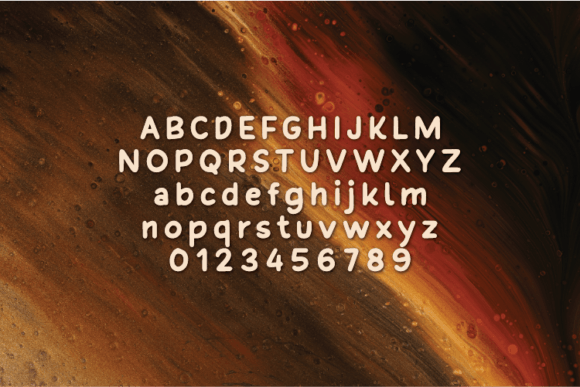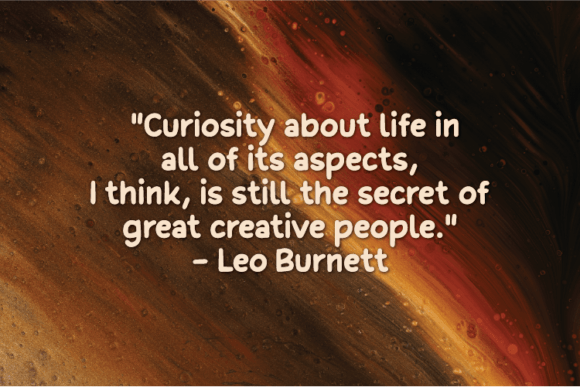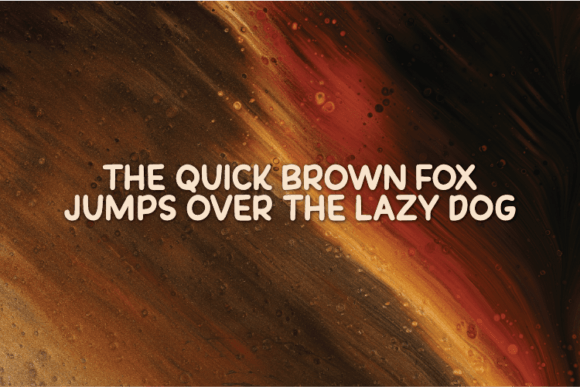
Introduction to Housewarm Font
You’re working on a creative project, and you need the perfect font to make your design pop. As you scroll through your font library, you come across a unique display font that catches your eye – Housewarm Font. Its natural, handcrafted feel instantly adds a touch of warmth and personality to your design.
Housewarm Font is a game-changer for designers looking to elevate their high-quality projects. This free download is a valuable design resource that offers a level of customization and flexibility that’s hard to find in other fonts. With its transparent background and subtle nuances, Housewarm Font is perfect for quotes, notes, tees, and any product design that needs a little extra something.
Key Features of Housewarm Font
- High-quality design: Housewarm Font is a premium font designed for creative projects, offering a unique and stylish look.
- Transparent background: The font features a transparent background, allowing for easy layering and customization in design projects.
- High-resolution design: The font is designed at 300 DPI, making it suitable for high-resolution printing and digital displays.
- Unique characteristics: Housewarm Font features a distinctive, hand-drawn style with intricate details and subtle texture, adding a touch of elegance to any design project.
- Size and resolution: The font is available in a range of sizes, from 12 to 72 points, and can be scaled up or down without losing its clarity or quality.
Honest Review: Housewarm Font
I recently stumbled upon the Housewarm Font while searching for a free download to enhance my creative project. I was impressed by the high quality of the font, which immediately caught my attention. The Housewarm Font is a fantastic design resource for anyone looking to add a unique touch to their work.
Here are some things that work well with the Housewarm Font:
- Unique and modern design that stands out from the crowd
- High quality vectors that can be scaled up or down without losing clarity
- Transparent background, making it easy to layer with other design elements
- Perfect for use in logos, branding, and other creative projects
However, I did notice a few limitations with the Housewarm Font:
- May not be suitable for use in body text due to its modern and stylized design
Overall, I’m impressed with the Housewarm Font and would recommend it to anyone looking for a high-quality design resource for their creative project. With a bit of creativity and experimentation, the Housewarm Font can be a valuable addition to any designer’s toolkit.
Tips for Getting the Most Out of Housewarm Font
Experiment with different font sizes and styles to find the perfect combination for your design. You can also pair Housewarm Font with other fonts to create a unique and creative look.
Housewarm Font is ideal for a variety of projects, including wedding invitations, business cards, and social media graphics. Its high quality and versatility make it a great choice for designers and non-designers alike.